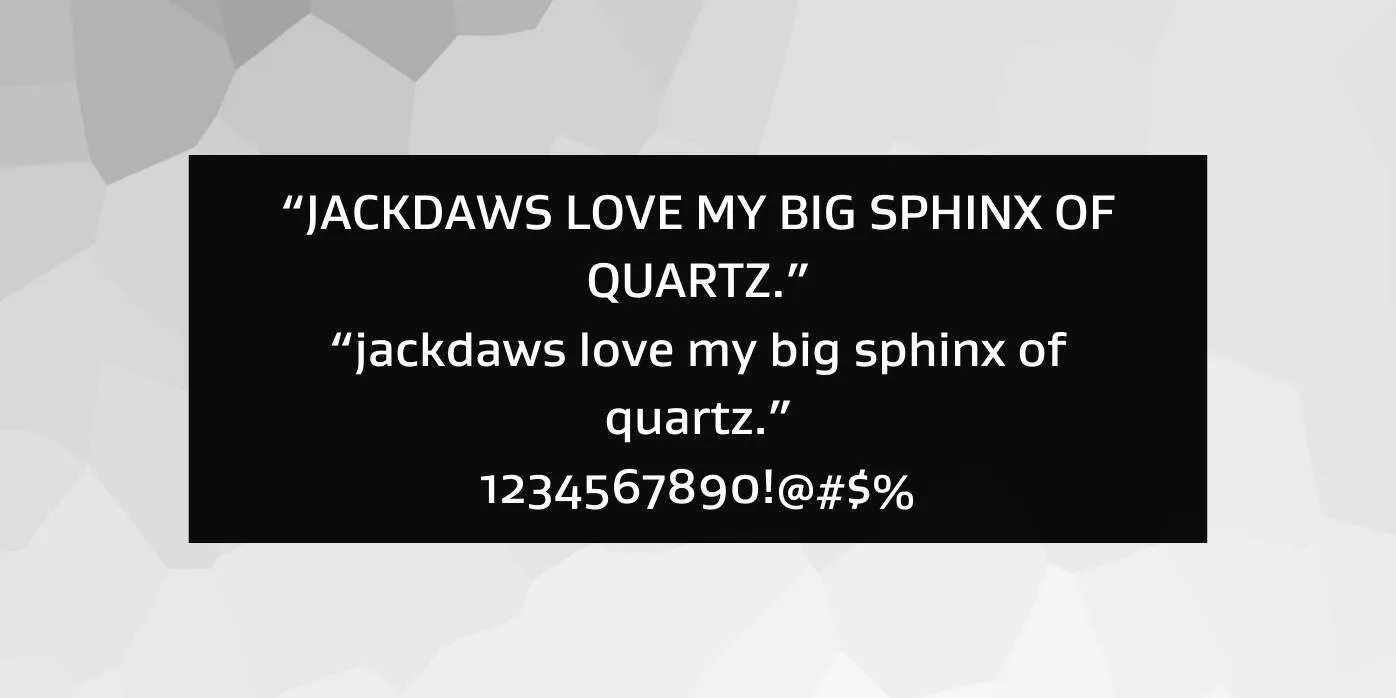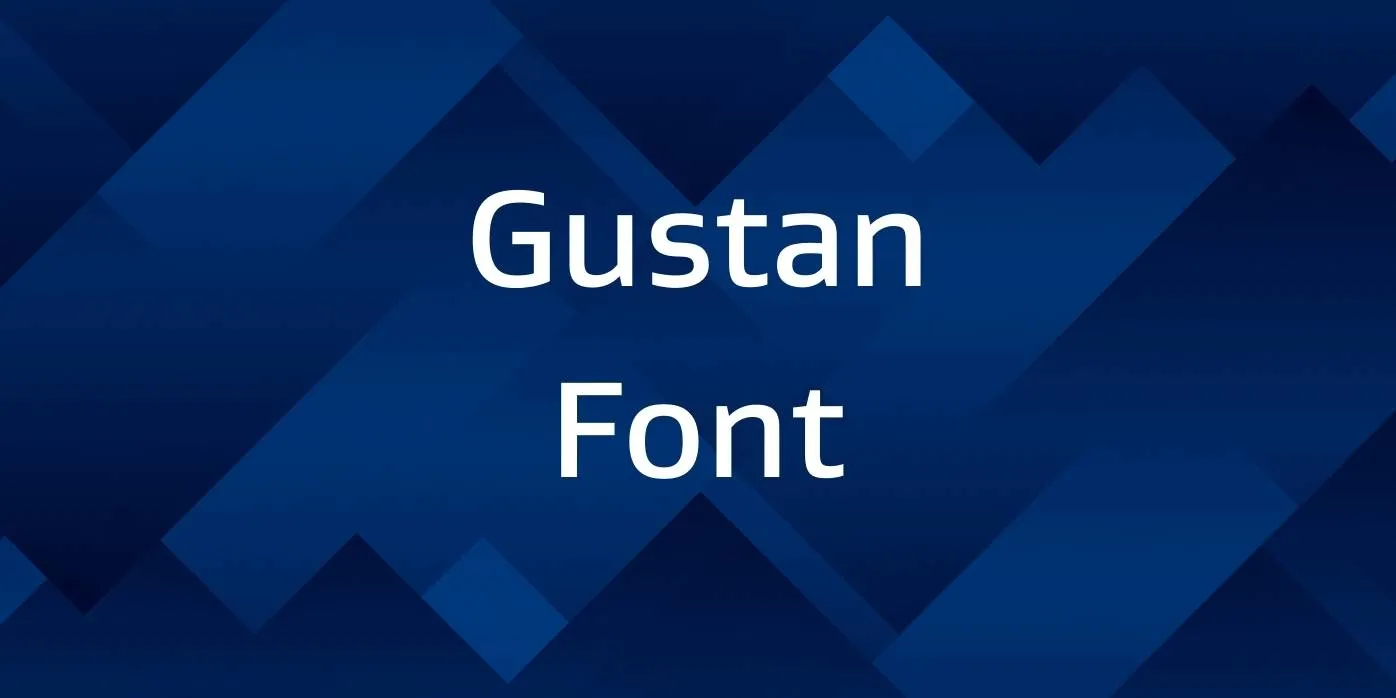
Gustan Font
Today, we are consulting on a marvelous typeface known as Gustan Font. This typeface belongs to the sans serif family.  It is a relatively new font, having been created in 2006 by Swiss typeface designer Thomas Schmid. Gustan Font is simple and easy to read, making it an ideal choice for body text.
It also has a very neutral appearance, which makes it versatile and suitable for a wide range of applications. The copy-and-paste function of this family is so classic. For more classic features, you will have to use its alternative neuzeit font which has the same features. One of the most notable features of this font is its large x-height.
This gives the letters a slightly condensed appearance, which helps to increase legibility. Its most notable feature is its online generator tool. The letters are also well-spaced, which makes the typeface even easier to read.